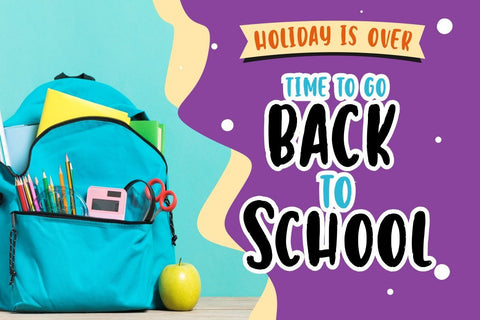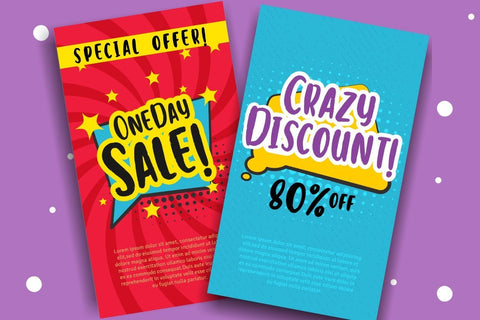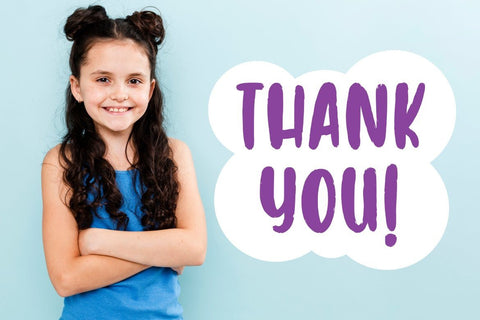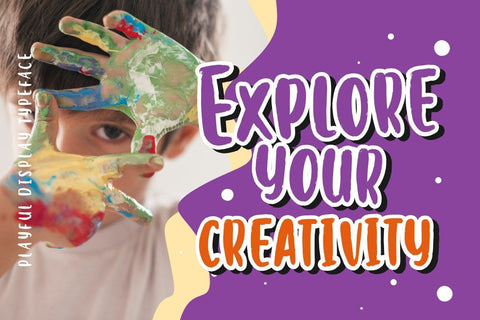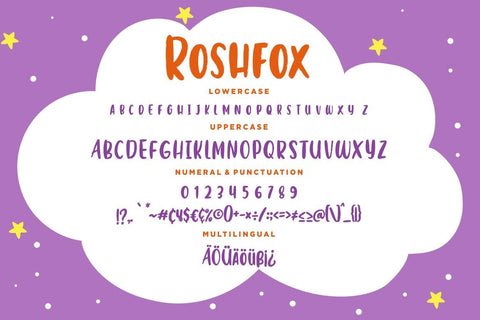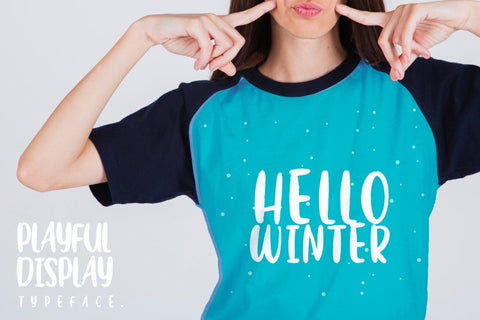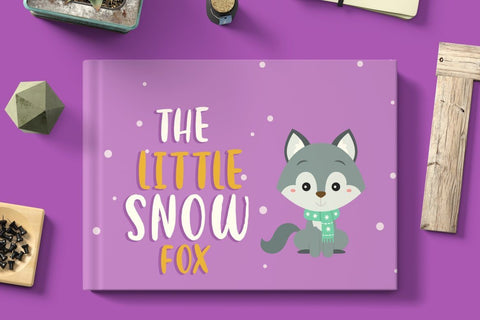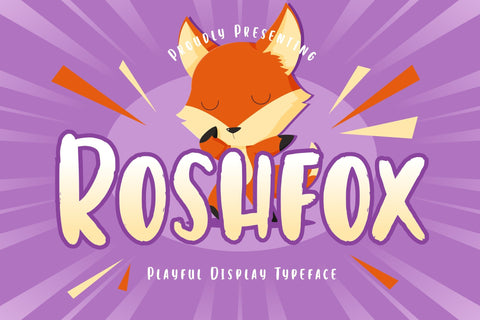
Roshfox Playful Display Typeface
Roshfox is playful display font which suitable to use for children related occasion.
Roshfox is perfect for branding projects, logo, wedding designs, social media posts, advertisements, product packaging, product designs, label, photography, watermark, invitation, stationery and any projects that need handwriting taste.
- Standard glyphs
- Ligature
- Fonts include multilingual support for; ä ö ü Ä Ö Ü ß ¿ ¡